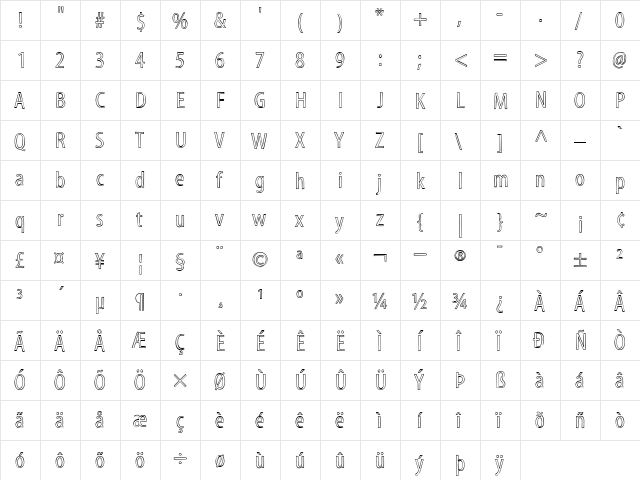
MyriadSketch Roman Font Preview
MyriadSketch Roman
MyriadSketch Roman Font Details
Design Context for MyriadSketch Typeface
MyriadSketch takes a measured approach to typography — its balanced proportions and neutral character make it a reliable workhorse for both digital and print work.